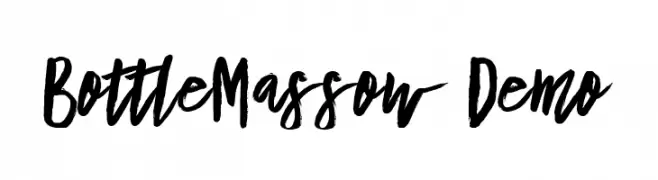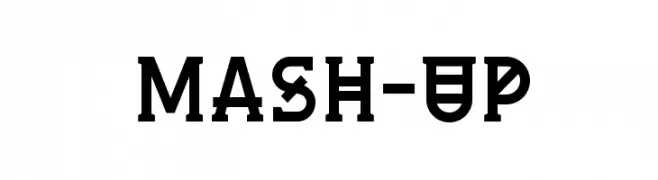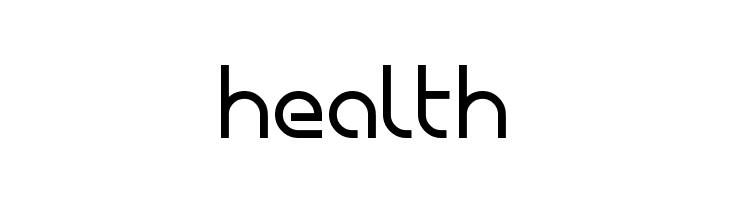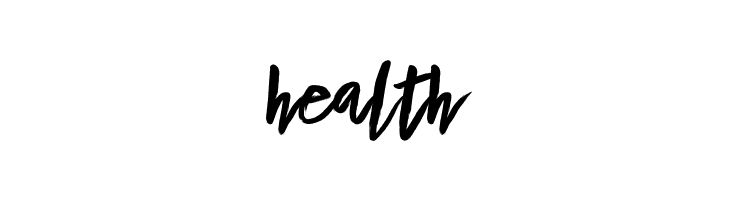
A bold, geometric font with strong lines and a modern aesthetic.
A handwritten-style font with elongated, fluid characters.
A cryptic, rune-like font with geometric shapes and uniform strokes.
A modern, rounded font with smooth curves and a clean, minimalist aesthetic.
A modern, rounded font with a clean and approachable design.
A modern, geometric sans-serif font with clean lines and rounded edges.
A modern, geometric font with clean lines and a sleek design.
A bold, decorative font with a distressed, festive style.
A bold, brush-style font with a hand-painted, cursive aesthetic.
An elegant, flowing script font with smooth, connected strokes and a sophisticated appearance.